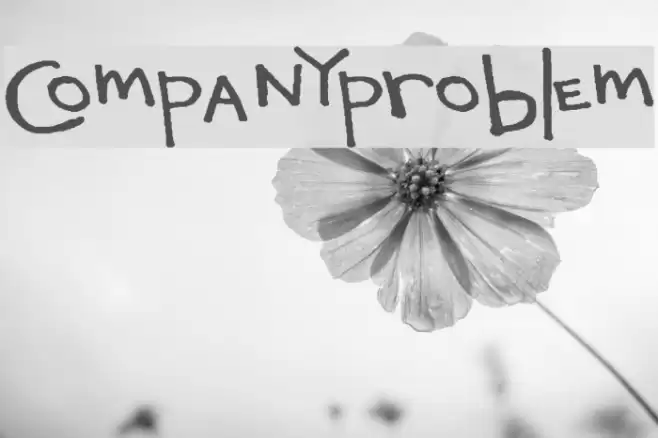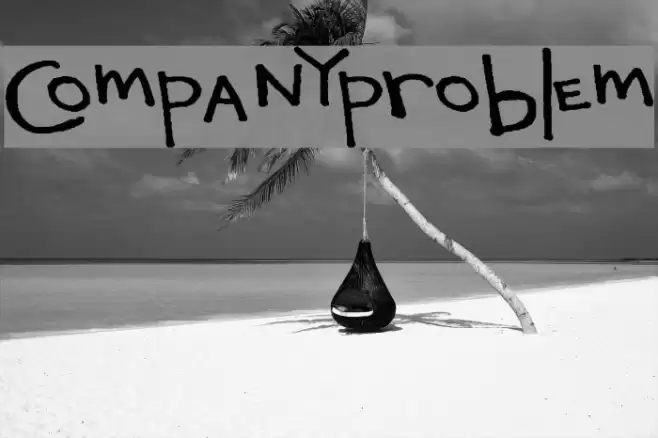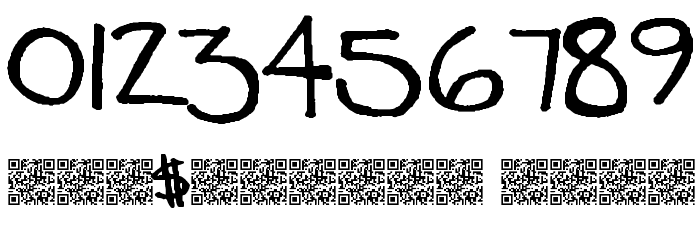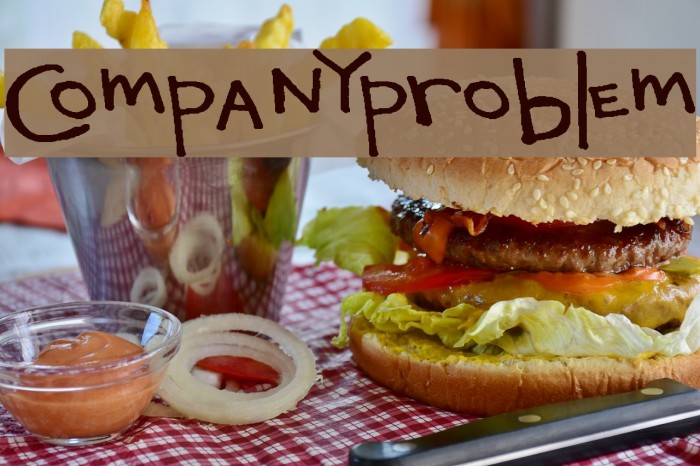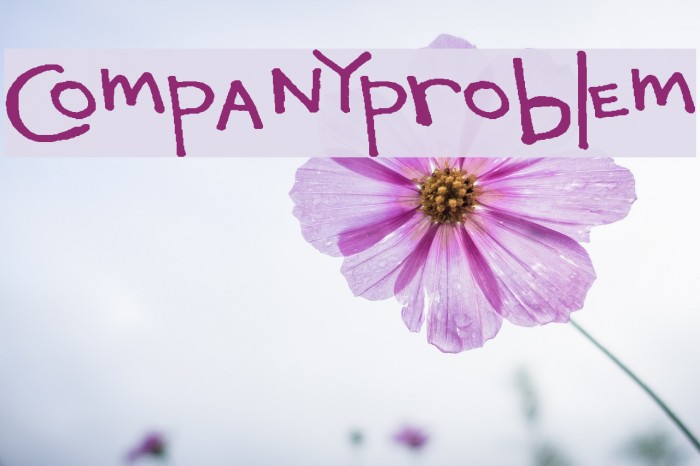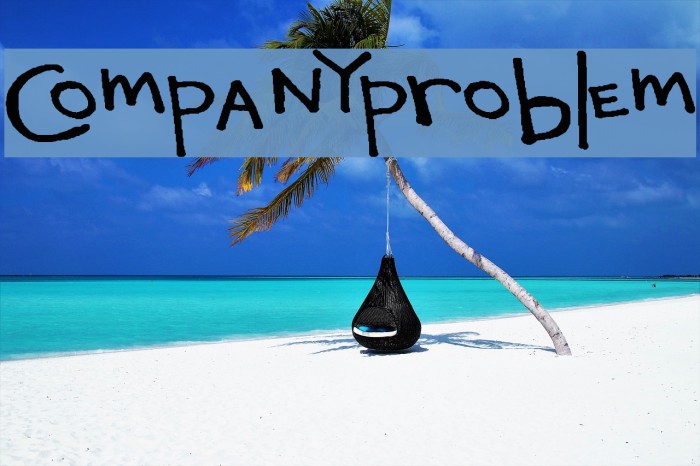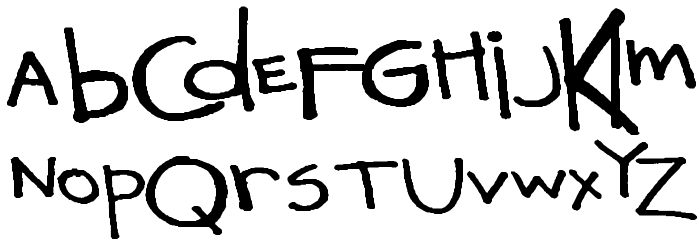
CompanyProblem Font
CompanyProblem Description
This font exhibits a playful and informal style, characterized by its hand-drawn appearance. The letters have an uneven baseline and varied stroke thickness, giving it a casual and whimsical feel. The uppercase letters are bold and slightly irregular, while the lowercase letters maintain a consistent yet quirky style. Numbers are bold and rounded, matching the playful aesthetic of the alphabet. Special characters are creatively designed, adding to the font's unique personality. This font is ideal for projects that require a fun and approachable look.
A playful, hand-drawn font with a casual and whimsical style from Handwritten fonts.
- Proposed Projects: Ideal for children's books, comic strips, playful branding, and casual invitations.